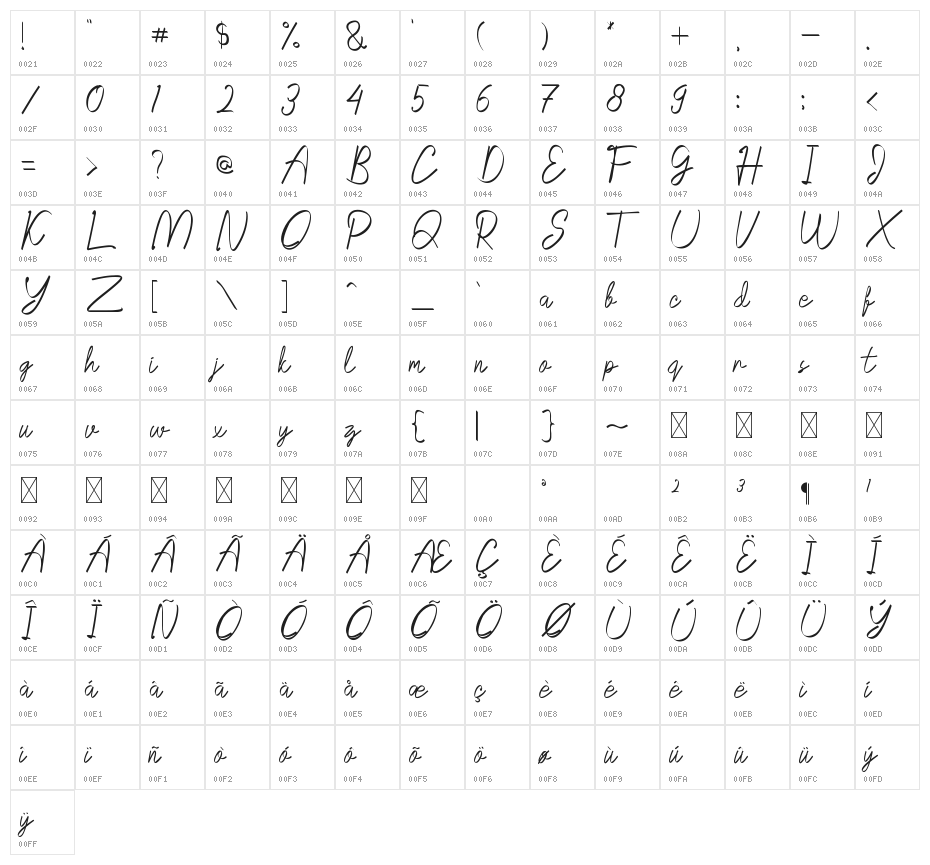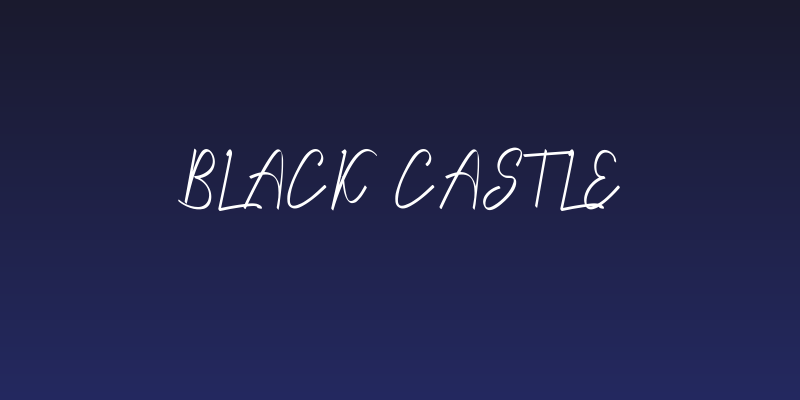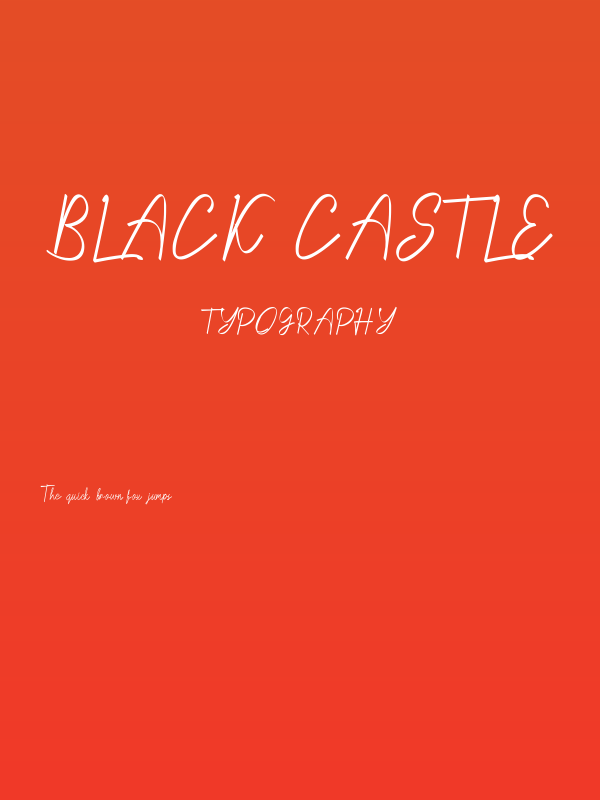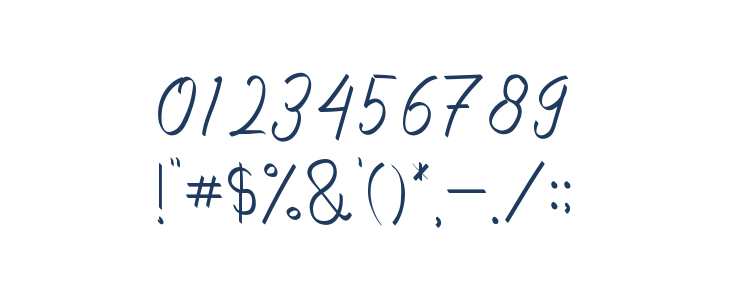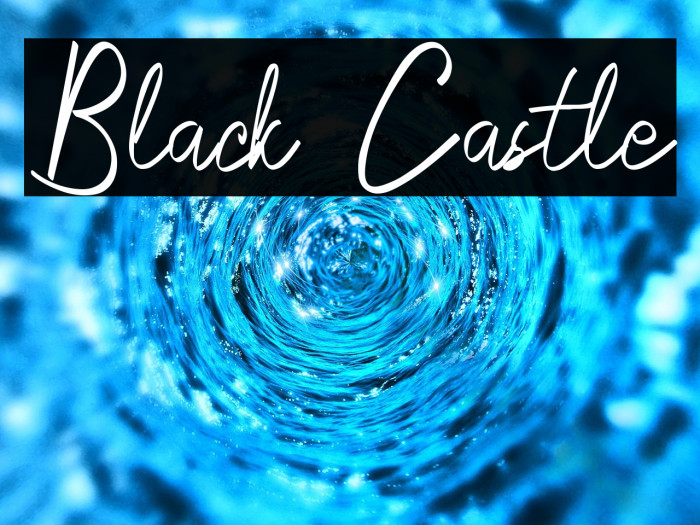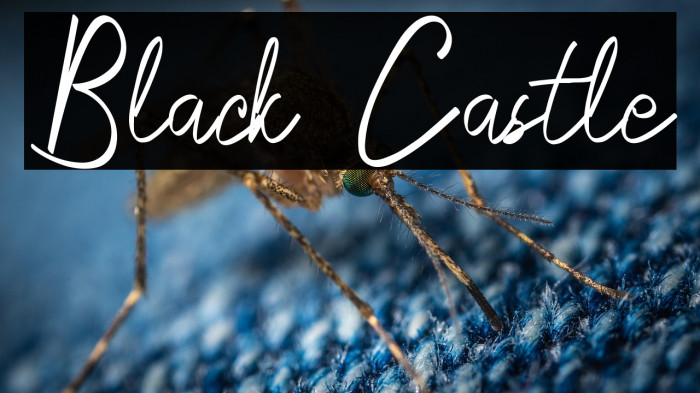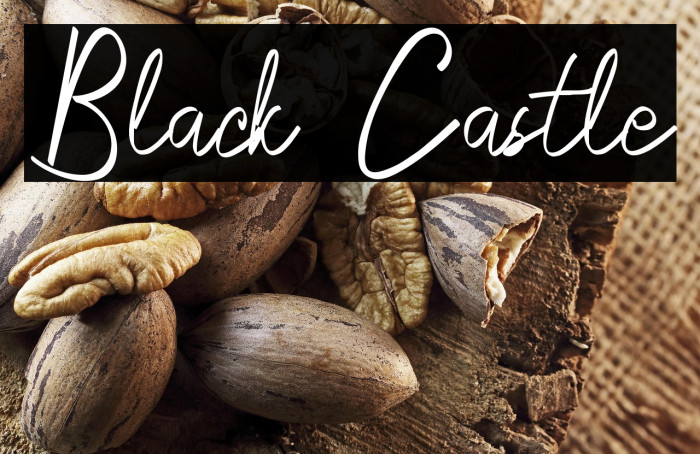
Black Castle Font
Black Castle Description
This font features a flowing, handwritten style that exudes elegance and sophistication. The letters are crafted with smooth, continuous strokes that mimic the fluidity of cursive handwriting. Uppercase characters maintain a consistent height and are slightly slanted, adding a dynamic feel. Lowercase letters are intricately connected, enhancing the script-like appearance. The numerals are well-proportioned, maintaining the same graceful curves as the alphabet. Special characters are thoughtfully designed to complement the overall aesthetic, ensuring a cohesive look across all text. This font is perfect for projects that require a personal touch, such as invitations, greeting cards, or branding materials.